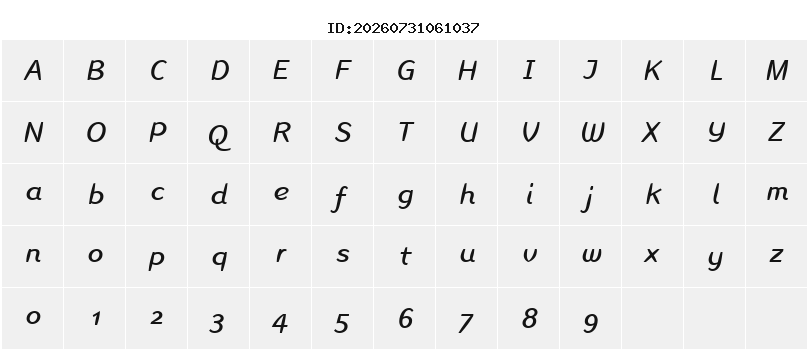
• Font Name: LTInagur
• Font ID: ParaType,Inc.onthebehalfandbythenameofLinotypeLibraryGmbH: Linotype Inagur Italic: 455
• Full Font Name: Linotype Inagur Italic
• Version: Version 1.0; 455; initial release
• PostScript Name: LinotypeInagur-Italic
• Designer: Hans-Jurgen Ellenberger
About LTInagur.ttf
LTInagur.ttf is a modern, elegant sans-serif font designed for ultimate readability and visual harmony. Perfect for branding, headlines, web design, and print materials.